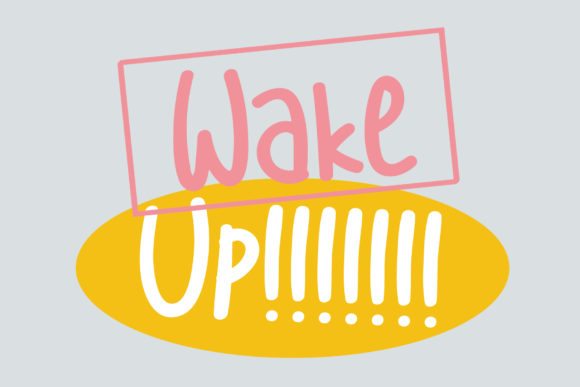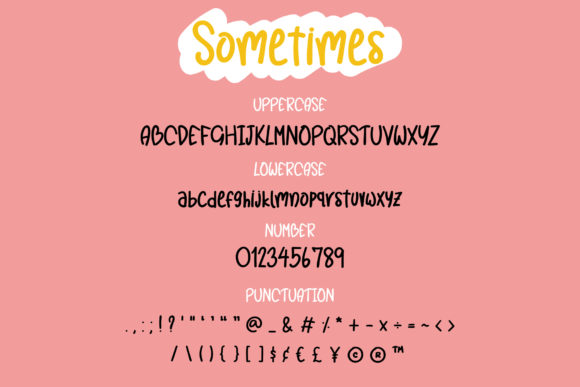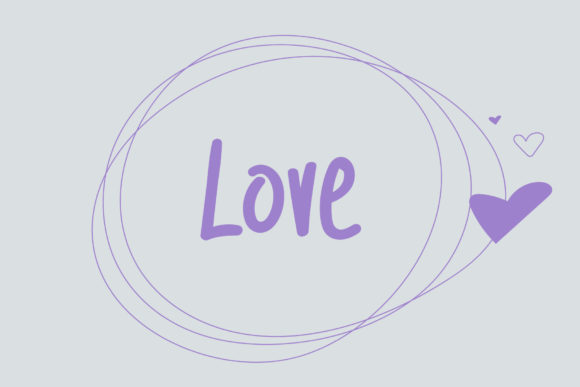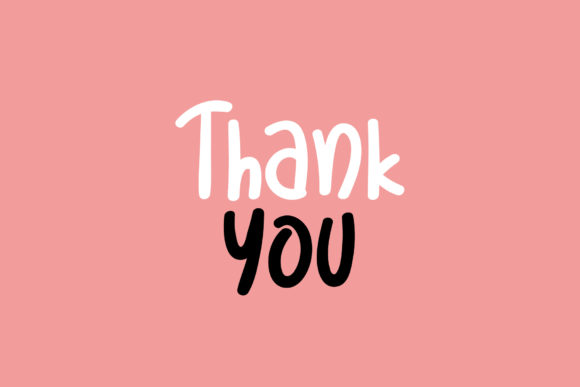
About Sometimes Font
Sometimes is an elegant and captivating handwritten font that exudes a timeless charm. Its flowing and graceful style lends itself well to various design projects, allowing you to create beautiful and eye-catching visuals. Here are some exciting ways to use Sometimes font and make your favorite projects truly spectacular:
1. Wedding Invitations: Use Sometimes font to create romantic and sophisticated wedding invitations that will leave a lasting impression on the recipients.
2. Quote Graphics: Design stunning quote graphics with Sometimes font to share inspirational and motivational messages on social media and blogs.
3. Greeting Cards: Create heartfelt and personalized greeting cards for special occasions like birthdays, anniversaries, and holidays using Sometimes font.
4. Branding and Logo Design: Use Sometimes font as part of your branding or logo design to add an elegant and unique touch to your business identity.
5. Calligraphy Art: Turn your favorite quotes and phrases into beautiful calligraphy art using Sometimes font for an artistic and refined look.
6. Blog Headers: Enhance the visual appeal of your blog with Sometimes font in blog headers and section titles.
7. Stationery: Design elegant and sophisticated stationery sets, including letterheads and business cards, with Sometimes font for a professional touch.
8. Social Media Posts: Infuse your social media posts with the refined charm of Sometimes font to engage your audience and stand out in their feeds.
9. Book Covers: Use Sometimes font for book covers to create an enchanting and captivating first impression for your readers.
10. Menu Design: Design stylish and elegant menus for restaurants, cafes, and events with Sometimes font to elevate the dining experience.
11. Art Prints: Create beautiful art prints featuring intricate lettering and design elements using Sometimes font for home decor.
12. Packaging Design: Use Sometimes font in product packaging to add a touch of sophistication and elegance to your products.
13. Product Labels: Design eye-catching and attractive labels for your products with Sometimes font to grab customers’ attention.
14. Event Invitations: Create sophisticated and stylish event invitations, such as cocktail parties and corporate events, with Sometimes font.
15. Digital Planner Elements: Design intricate and decorative digital planner stickers and elements using Sometimes font for digital planners and journals.
16. Typography Posters: Create captivating typography posters with Sometimes font for home or office decoration.
17. Website Headers: Use Sometimes font in website headers and banners to give your website an elegant and refined look.
18. Personalized Gifts: Design personalized gifts like custom mugs, notebooks, and tote bags using Sometimes font for a thoughtful touch.
19. Elegantly Styled Quotes: Present famous quotes or verses in an elegant and sophisticated style using Sometimes font for a touch of luxury.
20. Embroidery Designs: Create intricate and beautiful embroidery designs with Sometimes font for a classic and timeless look.
In conclusion, Sometimes is a flowing handwritten font that radiates elegance and timelessness. Its versatility and distinct style make it perfect for a wide range of design projects. Whether it’s for special occasions, branding, social media, or home decor, let Sometimes font add an extra touch of sophistication and beauty to your creative endeavors. Fall in love with this enchanting font and create truly spectacular designs!